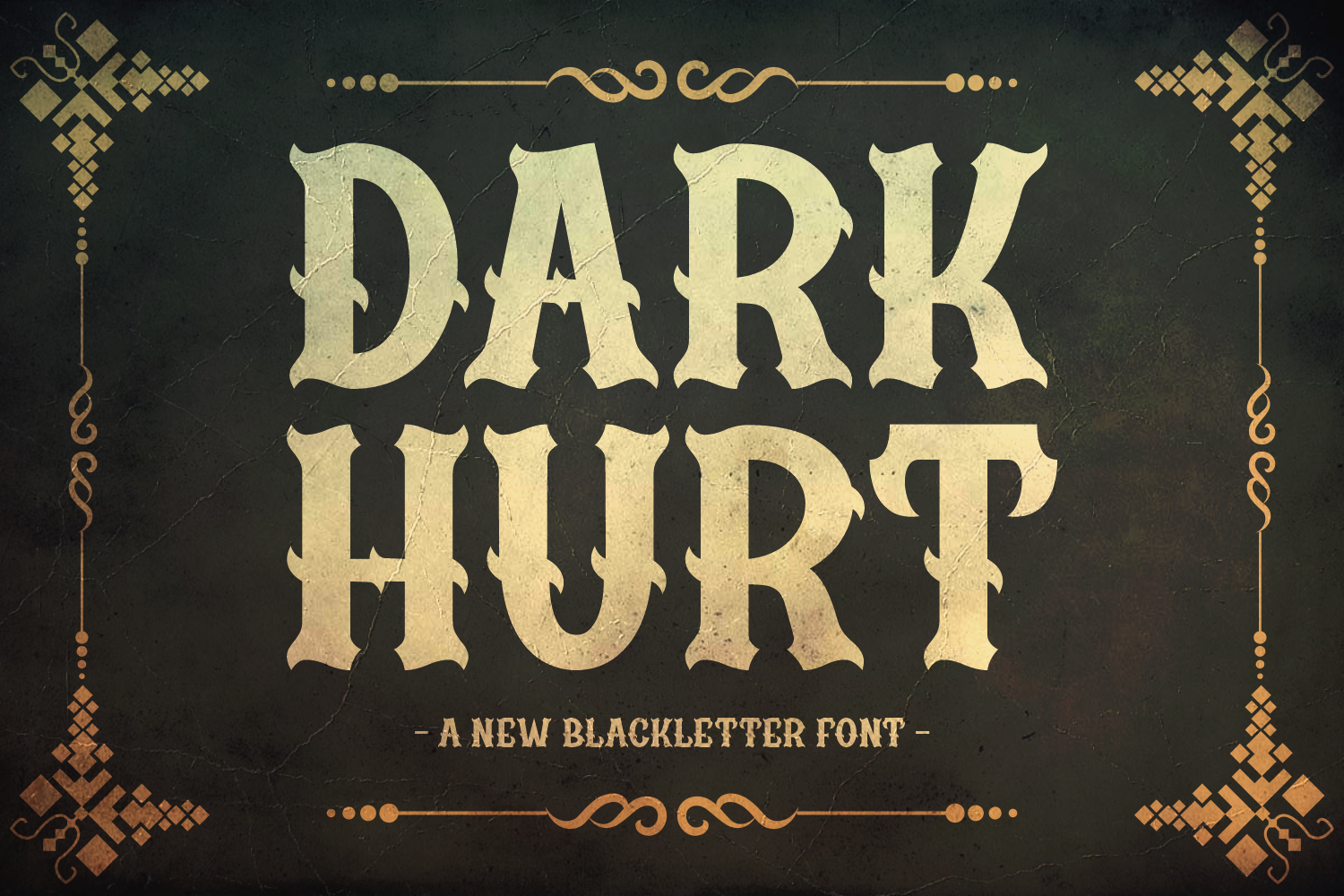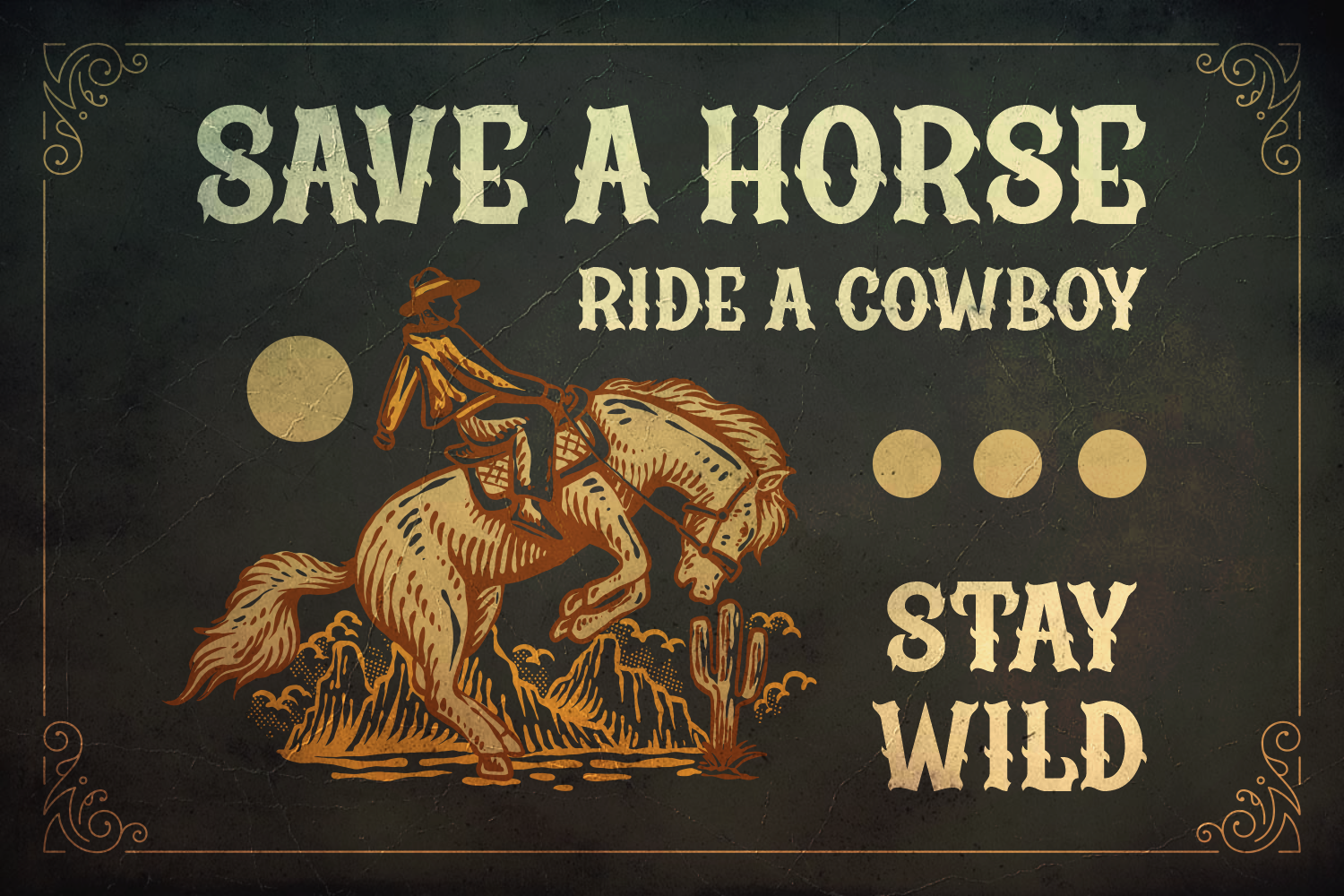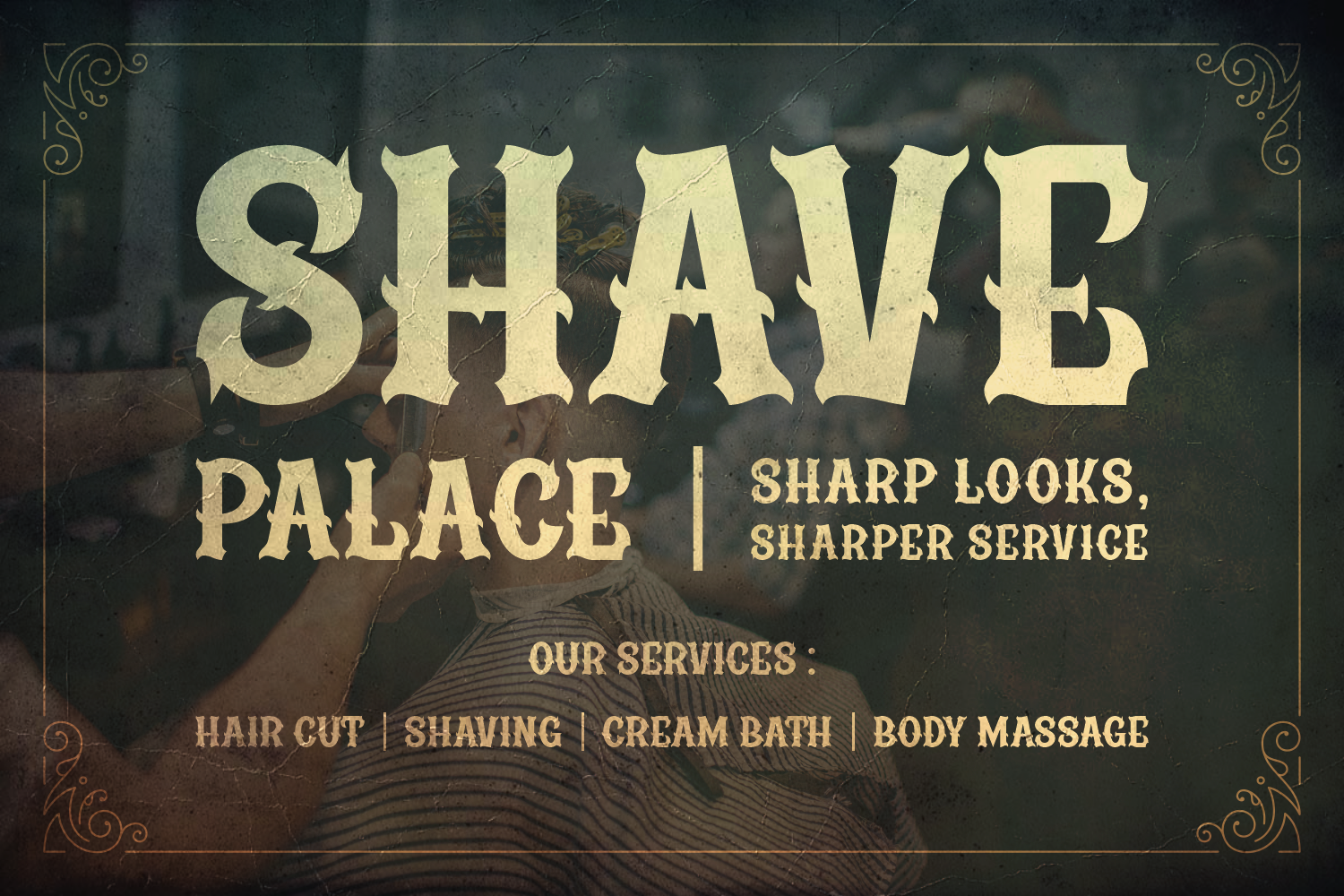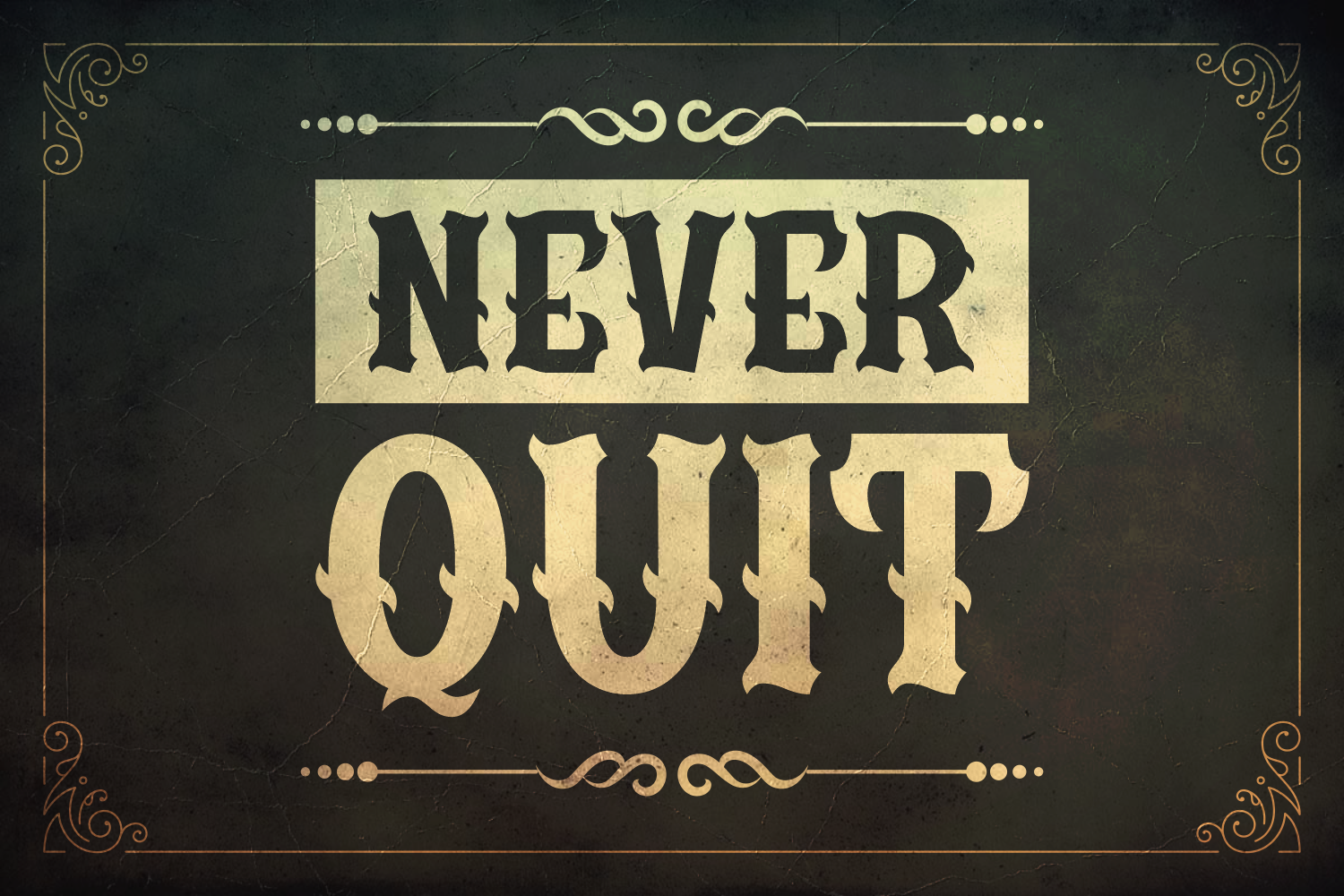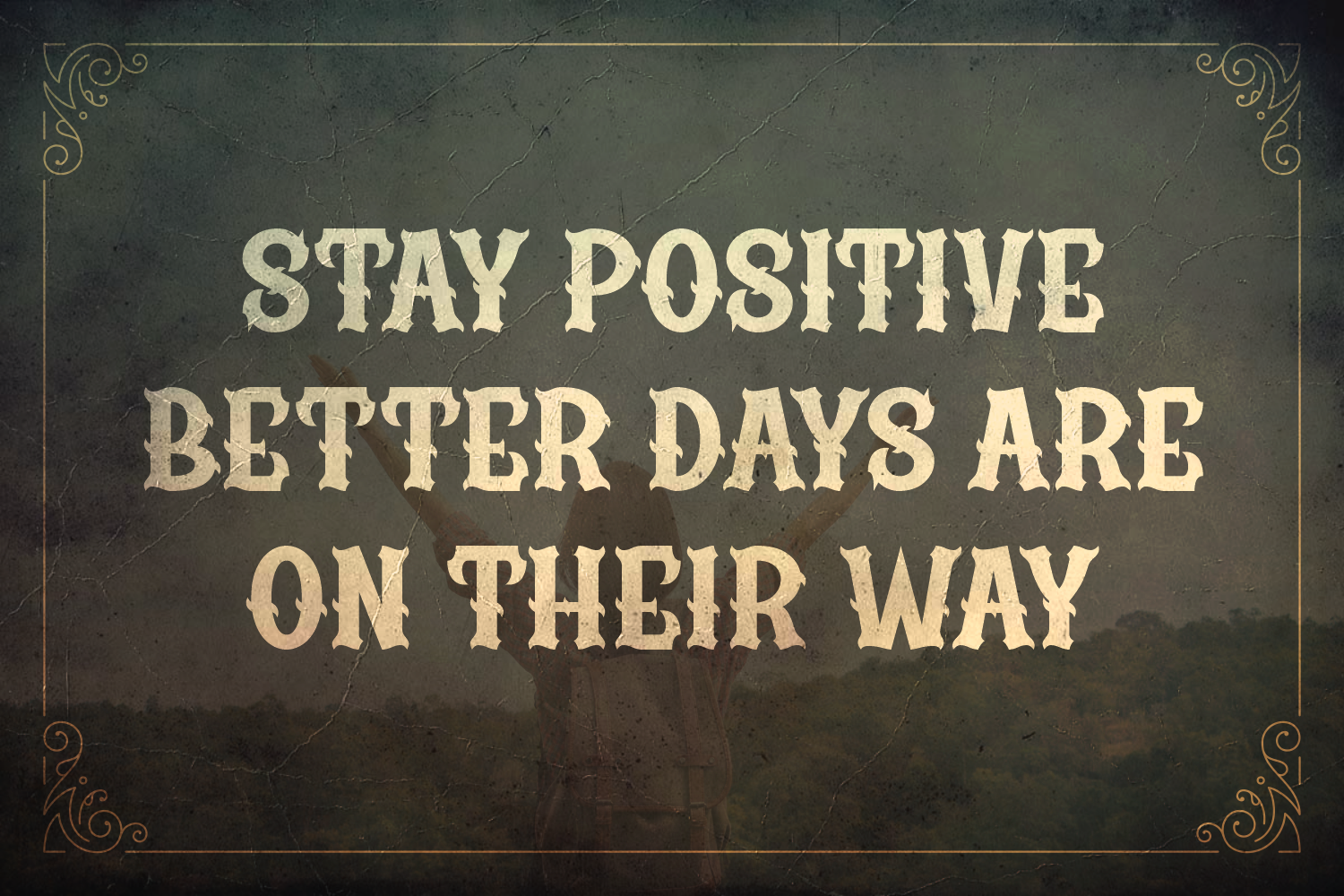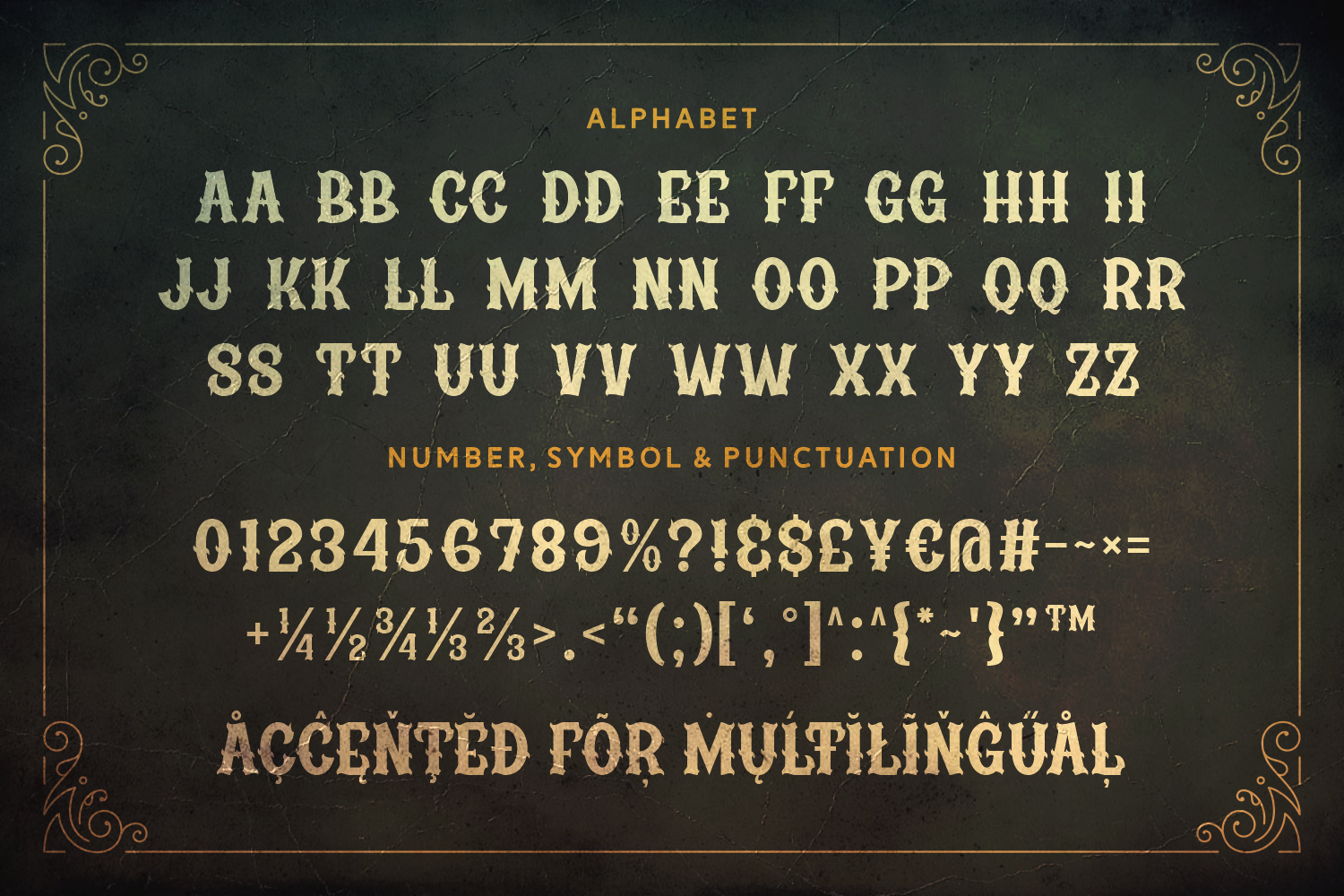
Dark Hurt is a distressed blackletter font that combines bold medieval forms with vintage texture. Ideal for horror titles, heavy metal branding, and dramatic posters.